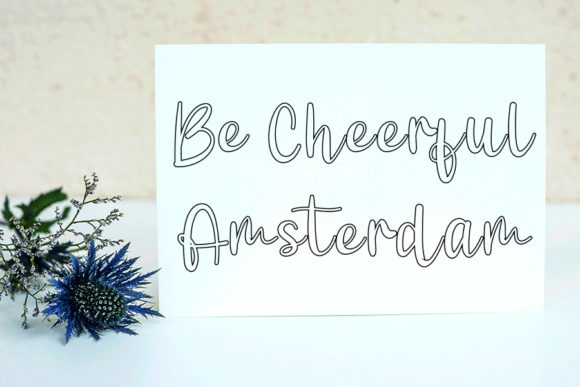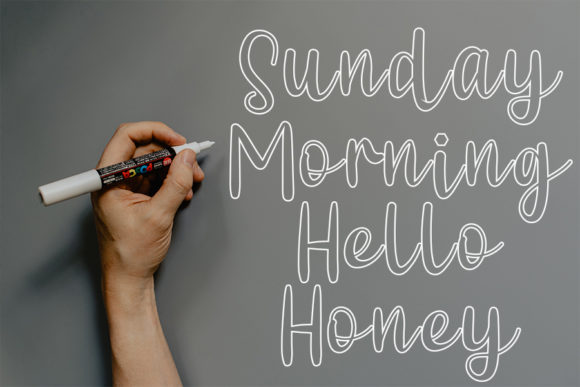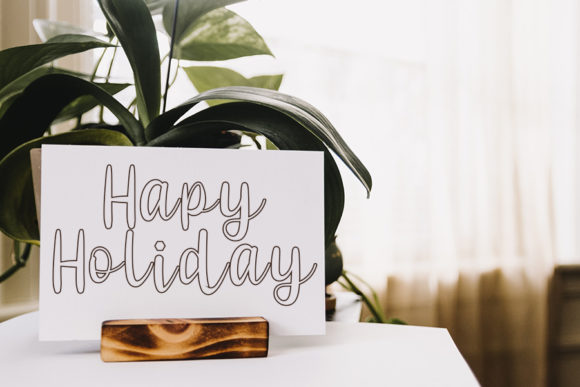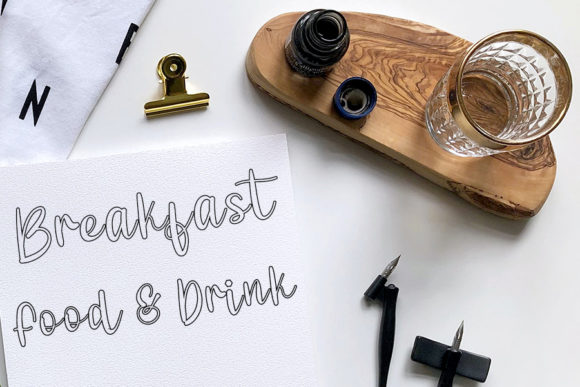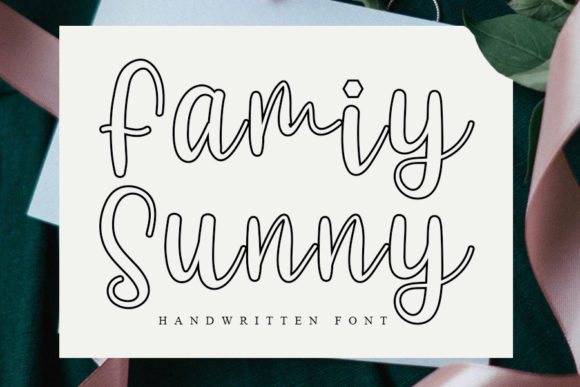
Introducing Family Sunny Font: A Fun and Playful Handwritten Font
Are you looking for a font that can add a touch of warmth and personality to your designs? Look no further than Family Sunny Font, a fun and playful handwritten font that’s perfect for a wide range of creative projects. In this article, we’ll take a closer look at Family Sunny Font, its features, and how you can use it to elevate your designs.
What is Family Sunny Font?
Family Sunny Font is a beautiful, handwritten font that’s designed to bring a sense of joy and playfulness to your designs. With its gentle and smooth strokes, this font is perfect for creating eye-catching headings, titles, and text that will capture the attention of your audience. Whether you’re working on a branding project, a website, or a craft project, Family Sunny Font is a great choice.
Key Features of Family Sunny Font
- Handwritten style: Family Sunny Font has a unique, handwritten style that’s perfect for creating a personal and friendly feel in your designs.
- Playful and fun: This font is designed to be playful and fun, making it perfect for projects that require a lighthearted touch.
- Gentle and smooth strokes: The strokes of Family Sunny Font are gentle and smooth, making it easy to read and beautiful to look at.
- Versatile: This font can be used for a wide range of design projects, from branding and advertising to crafting and DIY projects.
How to Use Family Sunny Font in Your Designs
Family Sunny Font is a versatile font that can be used in a variety of design projects. Here are a few ideas to get you started:
- Branding and logos: Use Family Sunny Font to create a unique and memorable logo for your brand.
- Headings and titles: Add a touch of personality to your headings and titles with Family Sunny Font.
- Web design: Use this font to create a friendly and approachable feel on your website.
- Crafting and DIY projects: Family Sunny Font is perfect for crafters and DIY enthusiasts who want to add a personal touch to their projects.
Why Choose Family Sunny Font?
There are many fonts to choose from, but Family Sunny Font stands out for several reasons:
- Unique style: Family Sunny Font has a unique, handwritten style that’s hard to find in other fonts.
- Ease of use: This font is easy to read and works well in a variety of design contexts.
- Customizable: You can customize Family Sunny Font to fit your design needs, from adjusting the size and color to adding effects and textures.
Tips for Getting the Most Out of Family Sunny Font
Here are a few tips for getting the most out of Family Sunny Font:
- Experiment with different sizes and colors: Try out different sizes and colors to see what works best for your design.
- Pair with other fonts: Family Sunny Font pairs well with other fonts, so don’t be afraid to experiment with different combinations.
- Add textures and effects: Add textures and effects to give your design an extra boost of personality.
Family Sunny Font is a fun and playful handwritten font that’s perfect for designers and crafters who want to add a touch of personality to their projects. With its gentle and smooth strokes, this font is easy to read and beautiful to look at. Whether you’re working on a branding project, a website, or a craft project, Family Sunny Font is a great choice. So why not give it a try and see how it can elevate your designs?